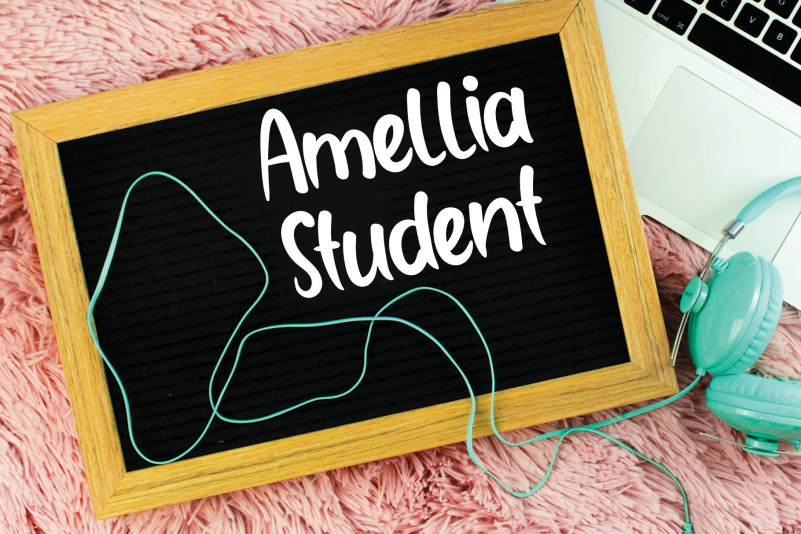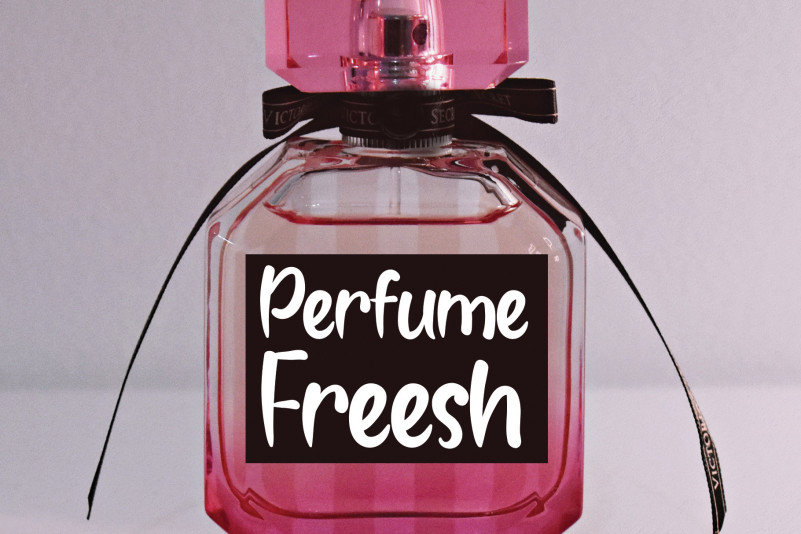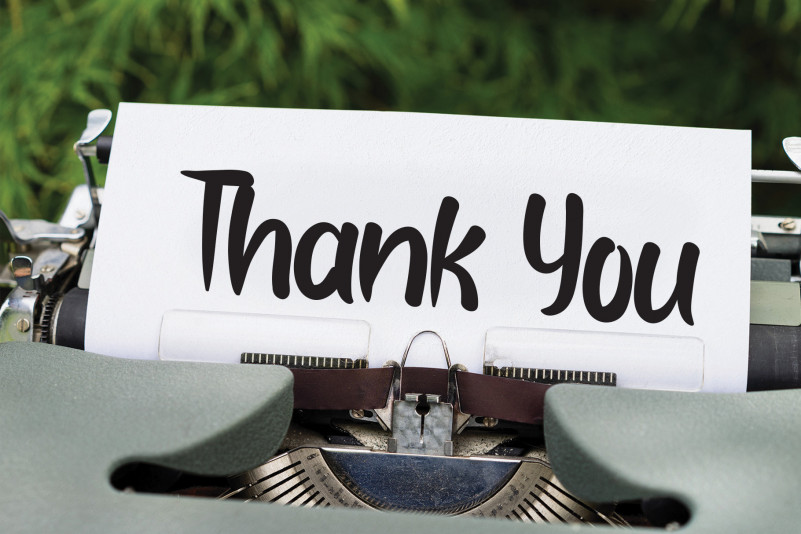
Rallina Flower Brush Font
Rallina Flower Brush Font is a cute and casual handwritten font. Get inspired by its amazing look and use it to bring any DIY project to life!